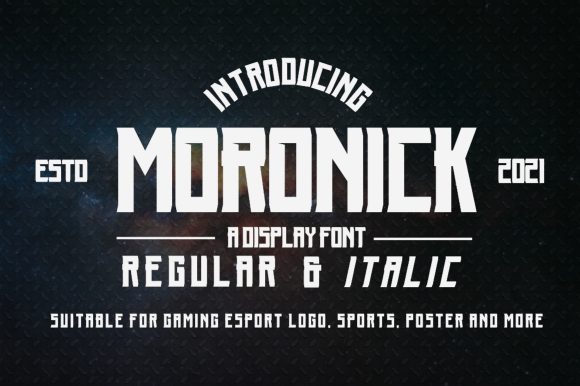
Behold, Moronick Font – the visual virtuoso that will ignite your designs with an air of captivating charm. This modern display font, meticulously crafted by dhridjie, is adorned with a unique shape that dances upon your screen, creating a visual symphony. As a member of the display font family, Moronick is a born entertainer, effortlessly commanding attention and leaving your audience spellbound.
With its inherent versatility, Moronick adapts seamlessly to a kaleidoscope of creative endeavors. Imagine your gaming logos aglow with Moronick's bold strokes, exuding an aura of intrigue and power. Unleash Moronick's dynamic personality upon your sports logos, imbuing them with a sense of motion and energy that mirrors the very essence of athleticism.
Moronick's captivating presence extends far beyond the realm of logos. Allow Moronick to orchestrate the visual symphony of your posters, transforming them into captivating masterpieces that command attention from all who behold them. Its distinctive shape lends an air of elegance and sophistication to movie titles, leaving an indelible mark upon the silver screen.
But Moronick's talents do not cease there. It's a virtuoso in the realm of flyers, effortlessly weaving a tapestry of visual allure that draws eyes like a magnet. With Moronick as your creative partner, your flyers become irresistible invitations to adventure, discovery, and enchantment.